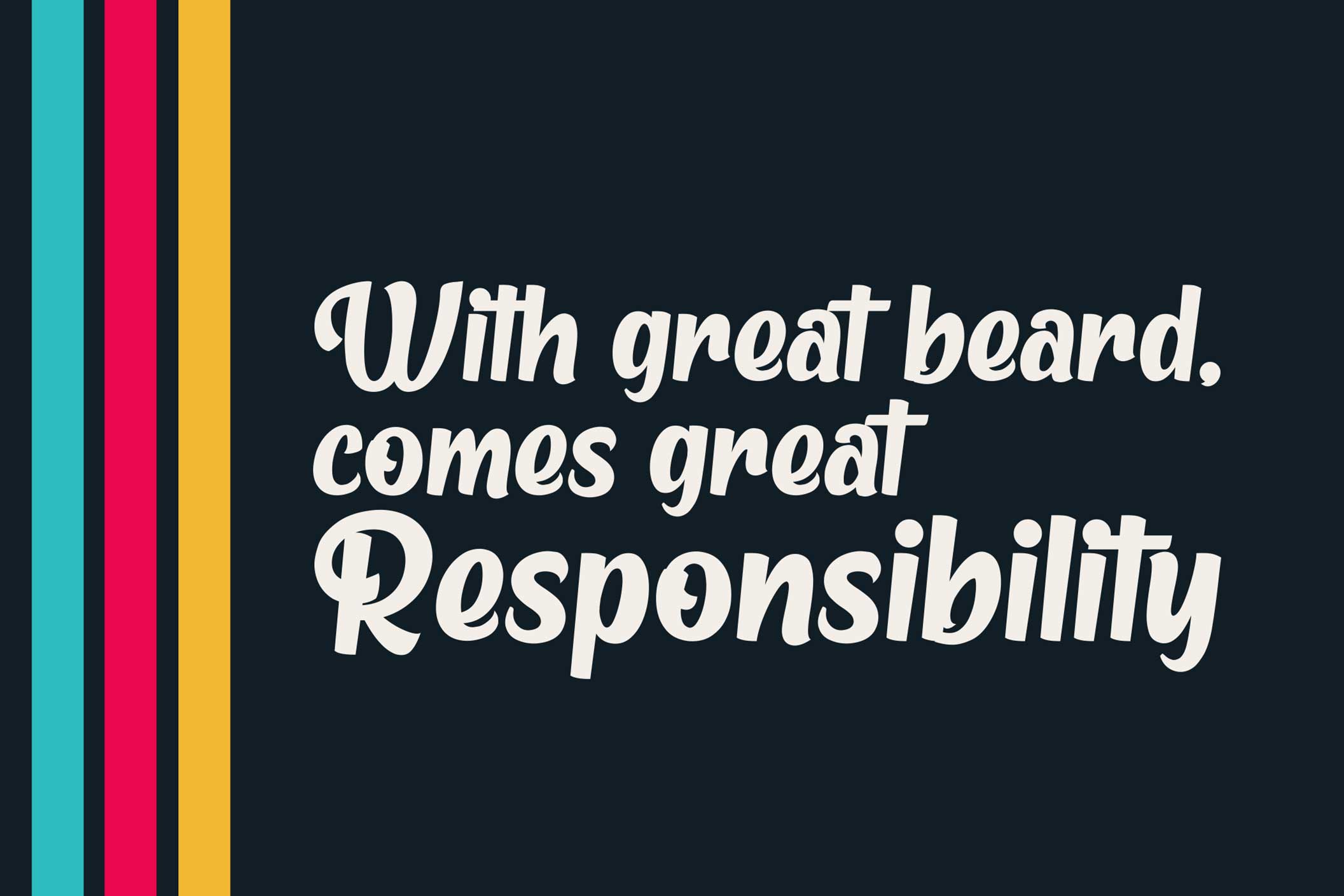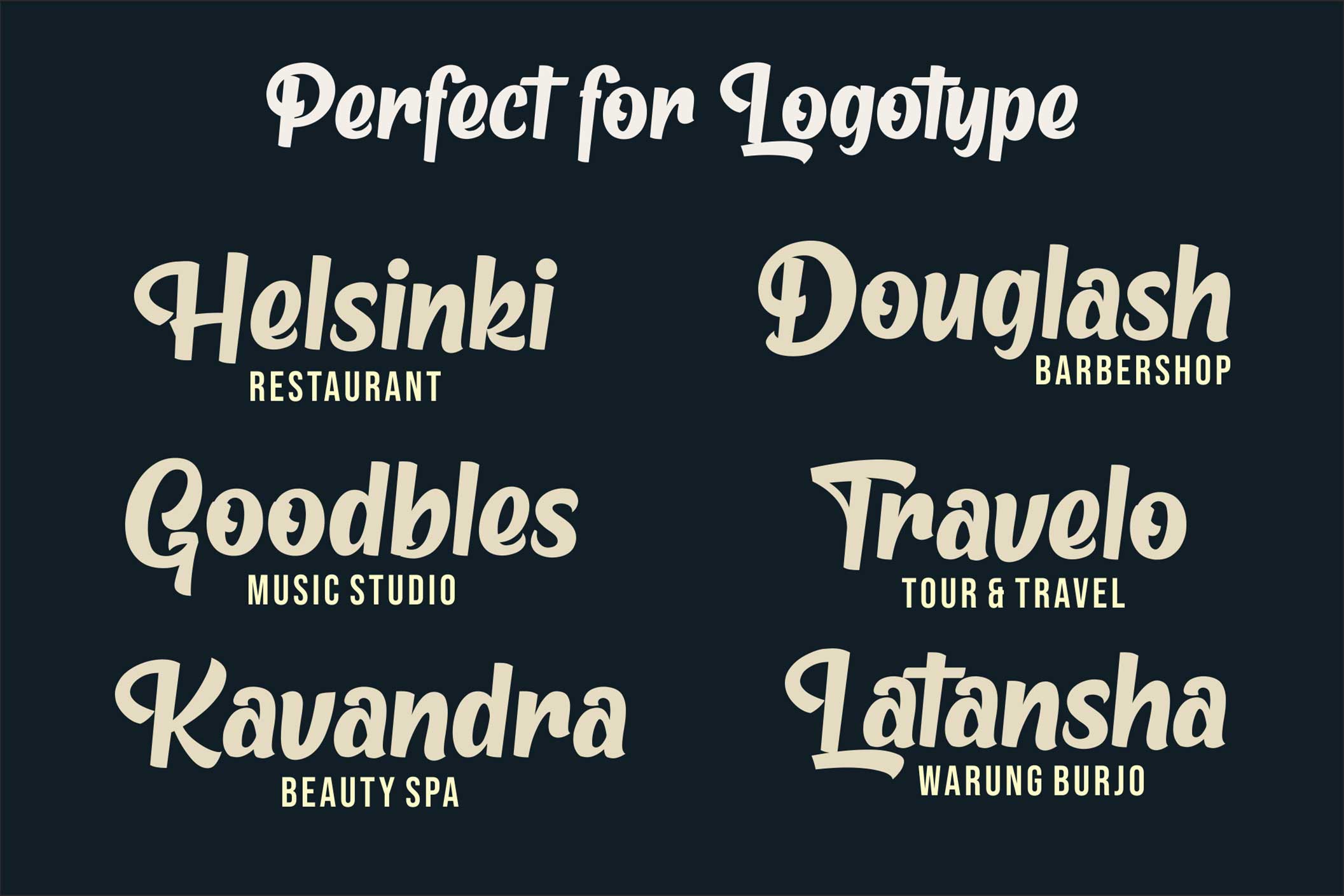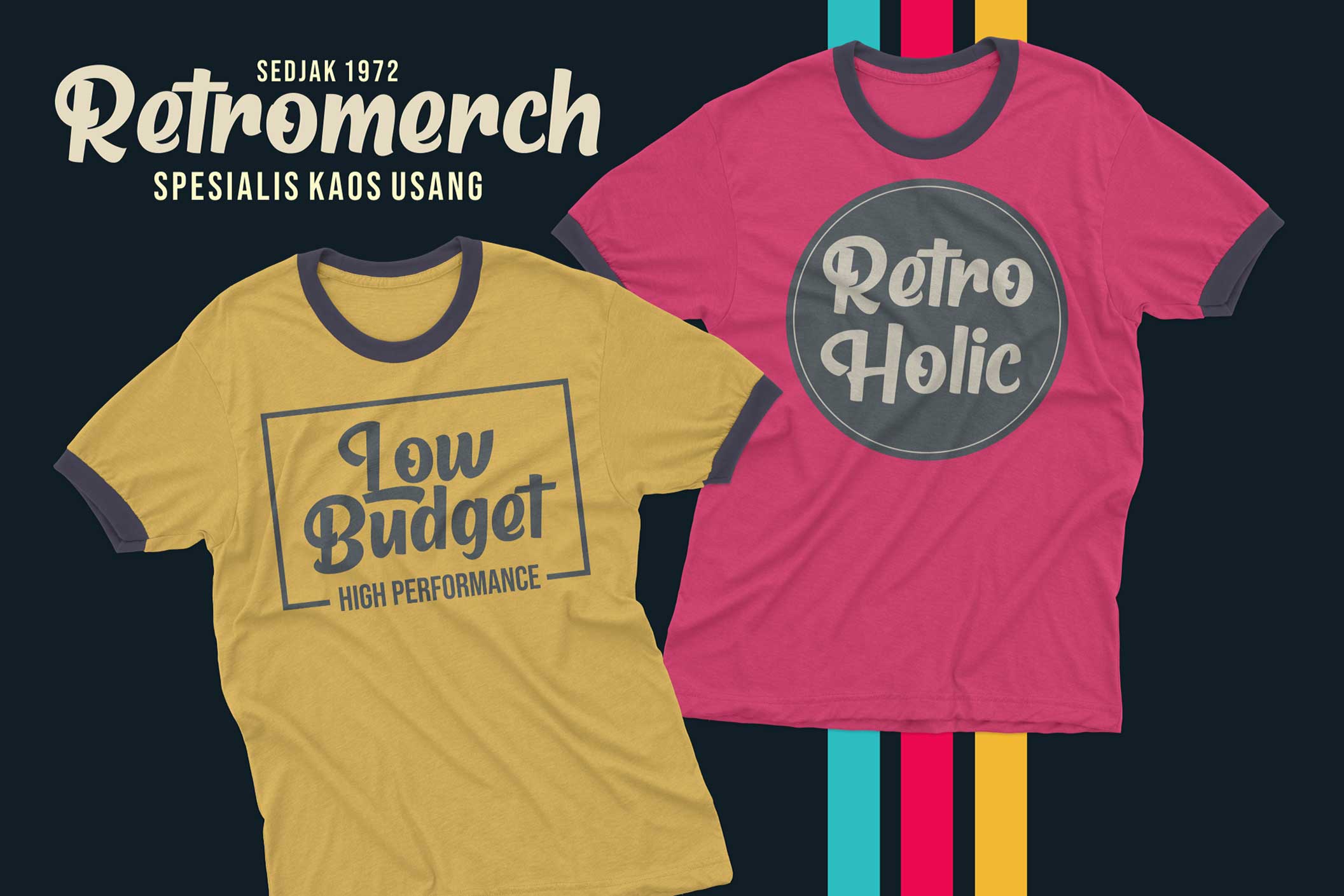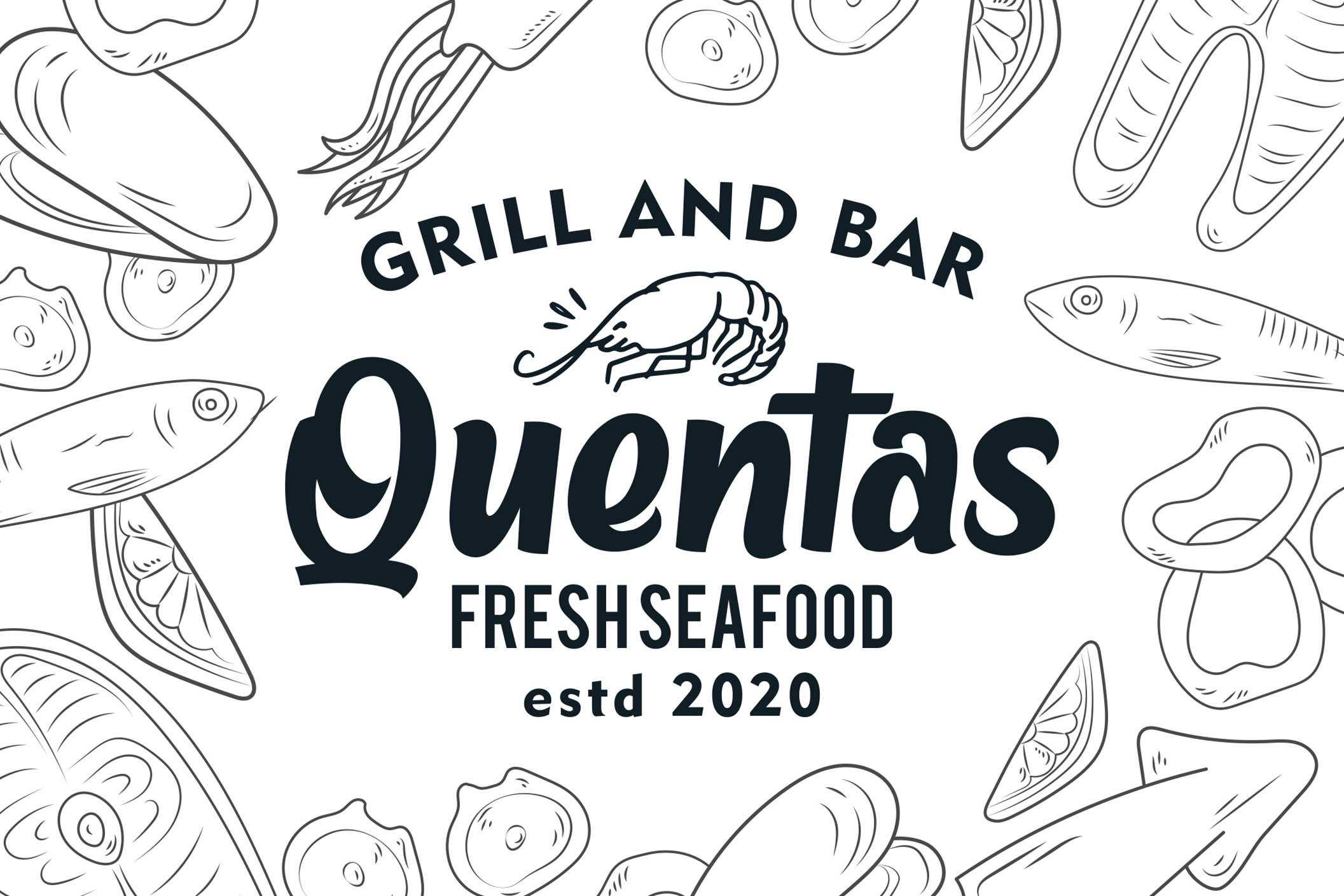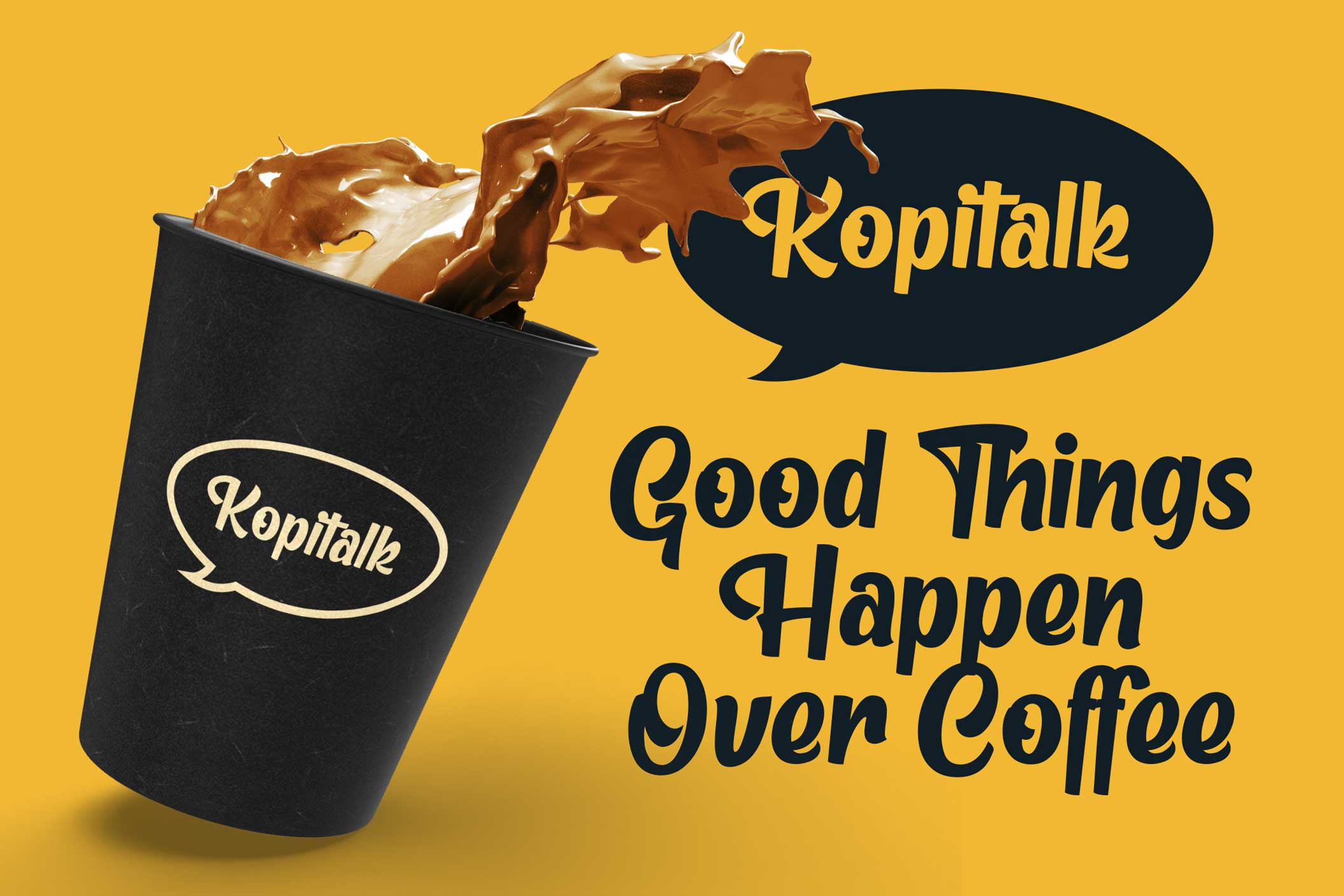
Metro Beardy Retro Bold Font for Vintage-Looking Creative Projects
Metro Beardy retro bold font is a hand-lettering display font designed with a natural scratched writing feel. It carries a bold retro personality, making it a strong choice for designers who want their work to feel expressive, handcrafted, and visually memorable.
This font is made for projects that need character. Instead of looking overly polished or generic, Metro Beardy brings a more organic hand-made impression. The letter shapes feel confident and full of personality, giving your design a vintage edge that works beautifully across both print and digital media.
For brand designers, packaging designers, apparel creators, poster makers, and content creators, Metro Beardy gives you a bold display style that can become the visual anchor of a project. It is especially suitable for designs with a retro or vintage look, including product labels, merchandise graphics, quote artwork, and statement typography.
Metro Beardy is built around a retro bold display style with a hand-lettered attitude. Its visual character comes from hand scratches, creating a natural writing texture that feels more human and expressive than a clean geometric display font.
The overall mood is bold, nostalgic, casual, and crafted. It has the kind of personality that works well when a design needs to feel approachable but still visually strong. Metro Beardy can help a logo feel more handmade, a label feel more collectible, or a poster feel more rooted in vintage visual culture.
Because it is a display font, Metro Beardy is best used for text that needs attention. It can bring impact to short phrases, brand names, packaging headlines, apparel statements, social media quote graphics, and promotional visuals. It is not intended to disappear quietly into the background. It is made to speak with style.
Best Use Cases for Metro Beardy Retro Bold Font
Metro Beardy retro bold font is suitable for many creative media, especially designs that need a retro or vintage direction. It can be used for packaging, logos, labels, posters, shirt designs, wisdom quotes, bulletins, typography compositions, and many other display-focused projects.
For packaging, Metro Beardy can help create a handcrafted brand impression. It works well for products that need warmth, character, and a nostalgic visual tone. Think coffee labels, snack packaging, craft goods, handmade products, lifestyle goods, and creative small business branding.
For logo design, it can bring a bold hand-lettered identity to businesses that want to feel casual, vintage, creative, or independent. It is especially useful when the brand needs a custom-looking display style without feeling too corporate.
For apparel and t-shirt design, Metro Beardy gives short statements and graphic phrases a stronger visual presence. Its retro feel can support lifestyle merchandise, creative clothing brands, event shirts, and print-on-demand product designs.
For posters and quote designs, the bold lettering style makes words feel more expressive. Whether you are creating wisdom quotes, motivational graphics, or editorial-style typography layouts, Metro Beardy can help the message feel more crafted and visually engaging.
Key Features
• Retro bold display font with hand-lettering style
• Created from hand scratches for a natural writing feel
• Suitable for packaging, logos, labels, posters, shirt designs, wisdom quotes, bulletins, typography, and more
• PUA Encoded
• Multilanguage support
• OpenType Stylistic Alternates support in compatible programs
• Alternates can be accessed through supported software such as Adobe Illustrator CS, Adobe InDesign, CorelDraw X6-X7, Character Map, Nexus Font, Font Book, or PopChar
Designers love Metro Beardy because it delivers a strong vintage impression without feeling stiff. Its hand-lettered construction helps creative work feel more personal, while the bold display form keeps the typography clear and eye-catching.
For branding projects, Metro Beardy can become a memorable visual signature. It works well when a brand needs something more expressive than a standard sans serif but still wants a strong and readable display look.
For packaging and labels, it brings instant character. A bold retro font can make a product feel more crafted, more independent, and more emotionally connected to the buyer. Metro Beardy is especially useful for packaging designs that need a warm, handmade, or nostalgic presence.
For content creators and digital product sellers, the font gives quote graphics, posters, and printable designs a stronger personality. Its bold style makes it suitable for short text layouts that need to stand out quickly on social media, marketplaces, or printed merchandise.
Metro Beardy is a bold choice for designers who want retro character, handcrafted texture, and strong display impact in one font. Use it to shape packaging, logos, labels, posters, apparel graphics, quote artwork, and vintage-inspired typography with a confident visual voice.